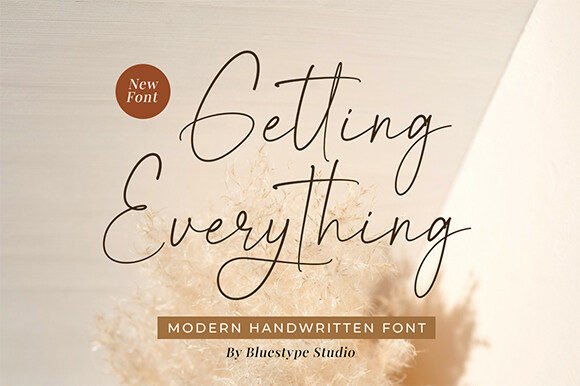
Introducing Getting Everything Font, the ultimate choice for adding a touch of elegance and creativity to your projects. Crafted by the talented team at Bluestype Studio, this script font is a true masterpiece that will captivate your audience from the moment they lay eyes on it.
With its stunning handwriting style and unique natural twist, Getting Everything Font is the perfect companion for all your design endeavors. Whether you're working on branding, social media graphics, business cards, or even a wedding invitation, this font will take your creations to new heights.
Imagine the impact this font can have on your t-shirt designs. Each stroke carries an air of sophistication and charm, making your apparel truly stand out from the crowd. Your customers won't be able to resist the allure of these captivating designs.
Magazines and quotes will come to life with the mesmerizing beauty of Getting Everything Font. Its graceful curves and impeccable letterforms will transform any text into a visual masterpiece. From fashion editorials to inspirational articles, this font will leave a lasting impression on your readers.
When it comes to watermarks and signatures, this font reigns supreme. Its elegant and fluid strokes add a personal touch to your digital creations, making them truly unique. Say goodbye to generic watermarks and hello to a signature style that truly represents your brand.
But that's not all - Getting Everything Font is also the perfect choice for wedding stationery. Its romantic and enchanting vibe sets the perfect tone for the most special day of your life. From save-the-date cards to wedding invitations, this font will add a touch of magic to every detail.
With its extensive range of applications, Getting Everything Font is a must-have for designers, entrepreneurs, and creatives alike. Join the ranks of those who have already experienced the transformative power of this font and let it inspire your next masterpiece.
Remember, the key to success lies in attention to detail. By choosing Getting Everything Font, you're not only investing in a high-quality script font but also in the emotions and experiences it will evoke. Don't settle for ordinary - let your designs shine with the extraordinary beauty of Getting Everything Font.